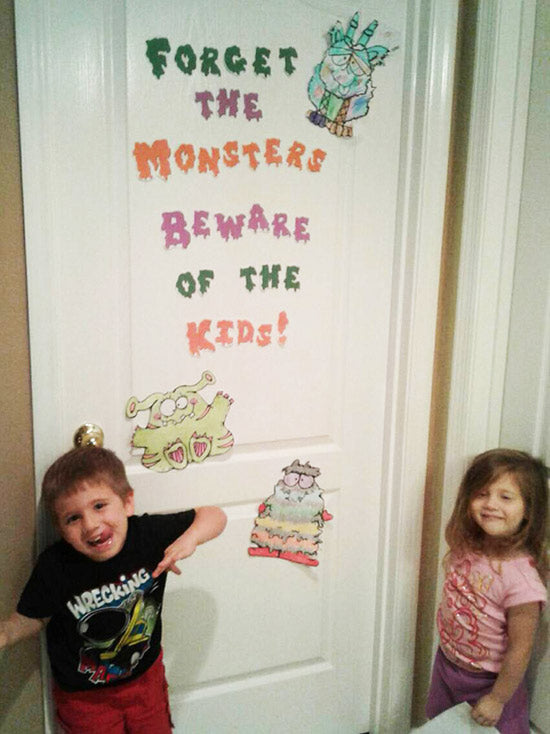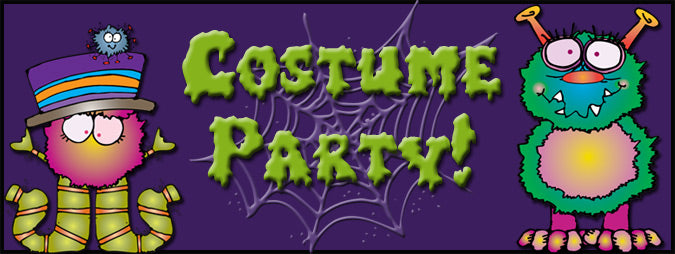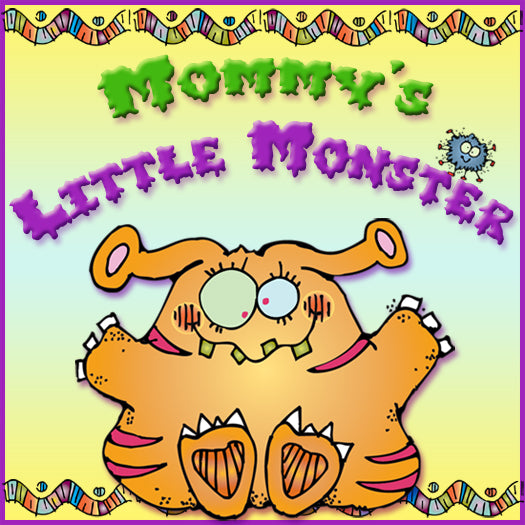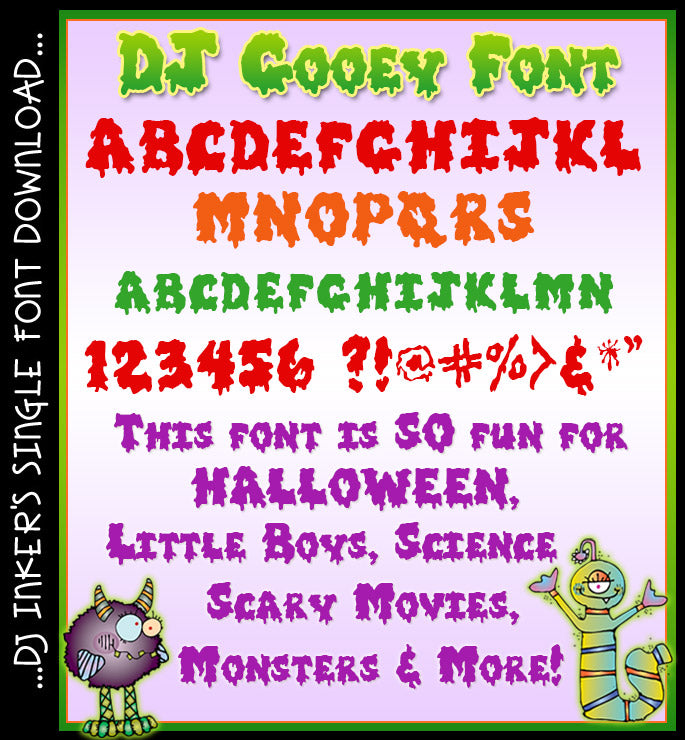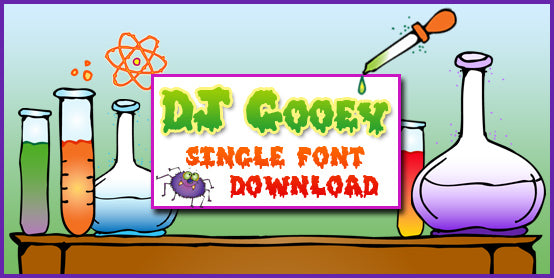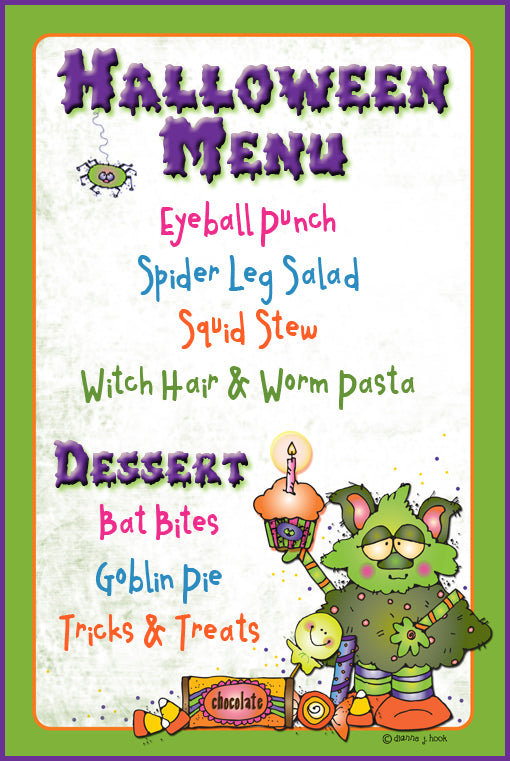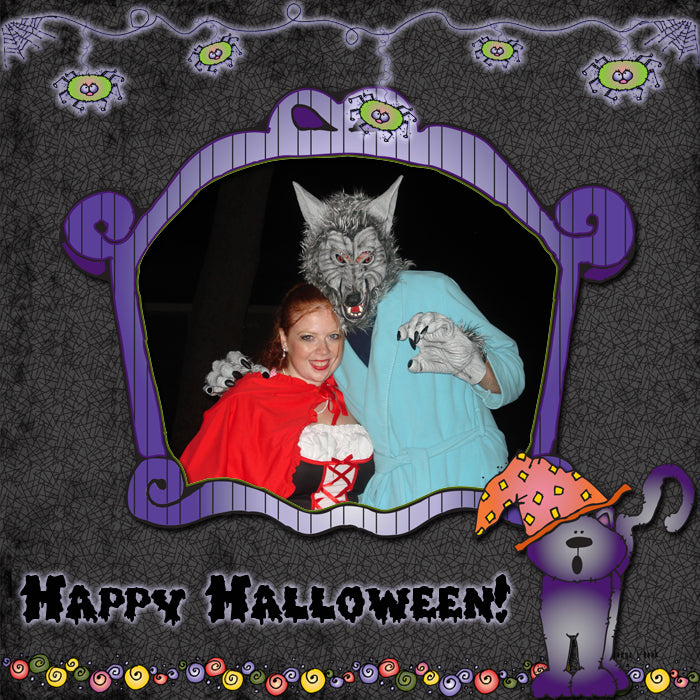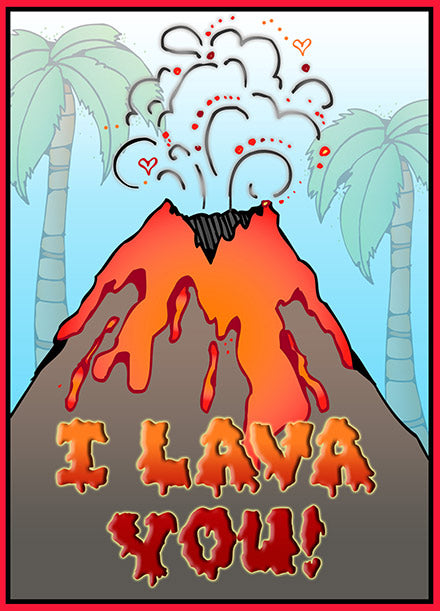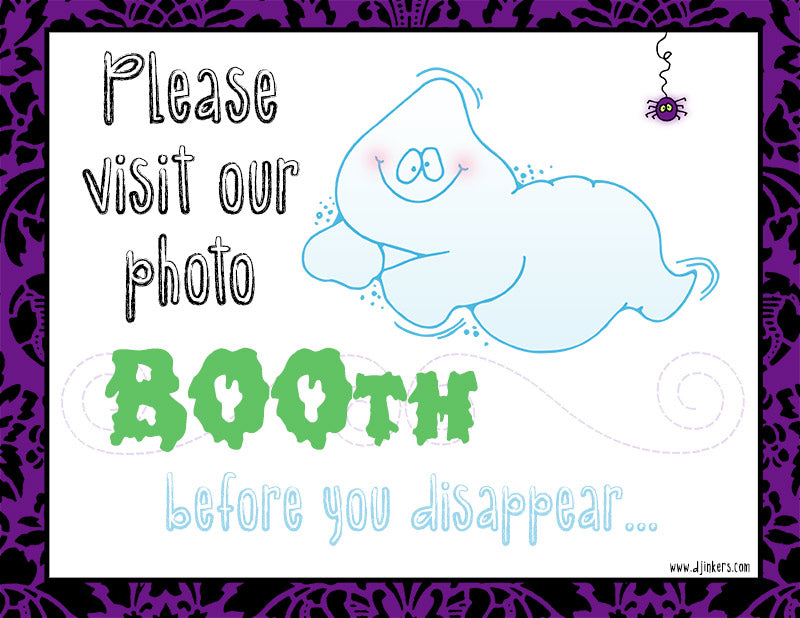
DJ Gooey is a fun drippy font for Halloween, scary movies, science, slime and more!
Add a little character to your font collection with DJ Gooey! This bold, drippy lettering is perfect for Halloween, little boys, scary movie night, science, monsters and more! Have a little fun & try green for slime, orange for science or red for blood.